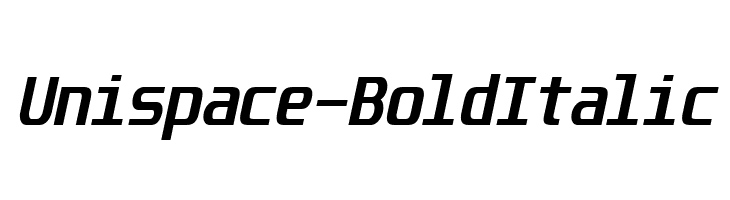
A bold, italicized geometric font with a futuristic style.
A bold, italic sans-serif font with a modern and dynamic style.
A modern, italic font with medium contrast and geometric structure.
A modern, italic font with a sleek, geometric design and uniform spacing.
A modern, geometric font with clean lines and uniform spacing.
A futuristic, geometric monospaced typeface with a clean and modern aesthetic.
A geometric, modern font with a blocky, structured design and uniform stroke width.